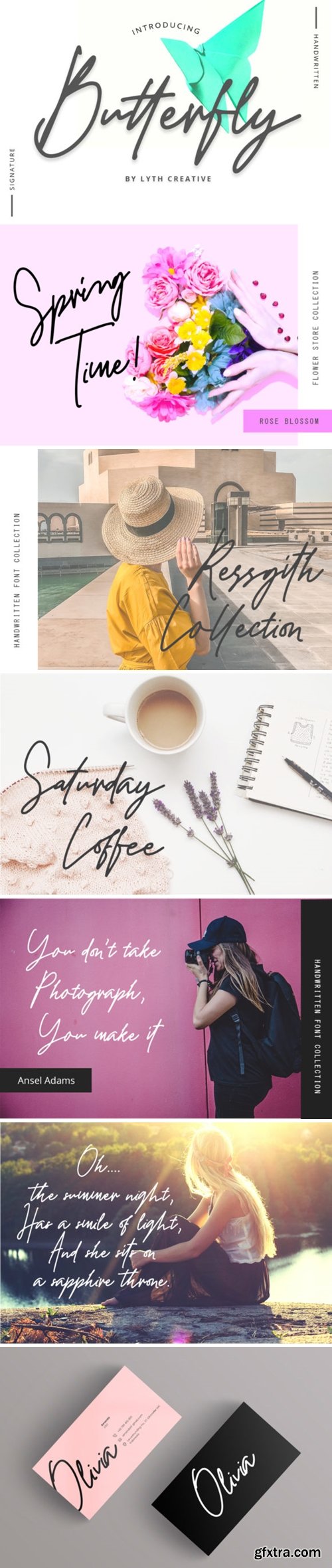
蝴蝶字体
Butterfly Font
Butterfly is an exciting handwritten font with signature style. This beautiful script can make your design project look elegant, classy, and modern.